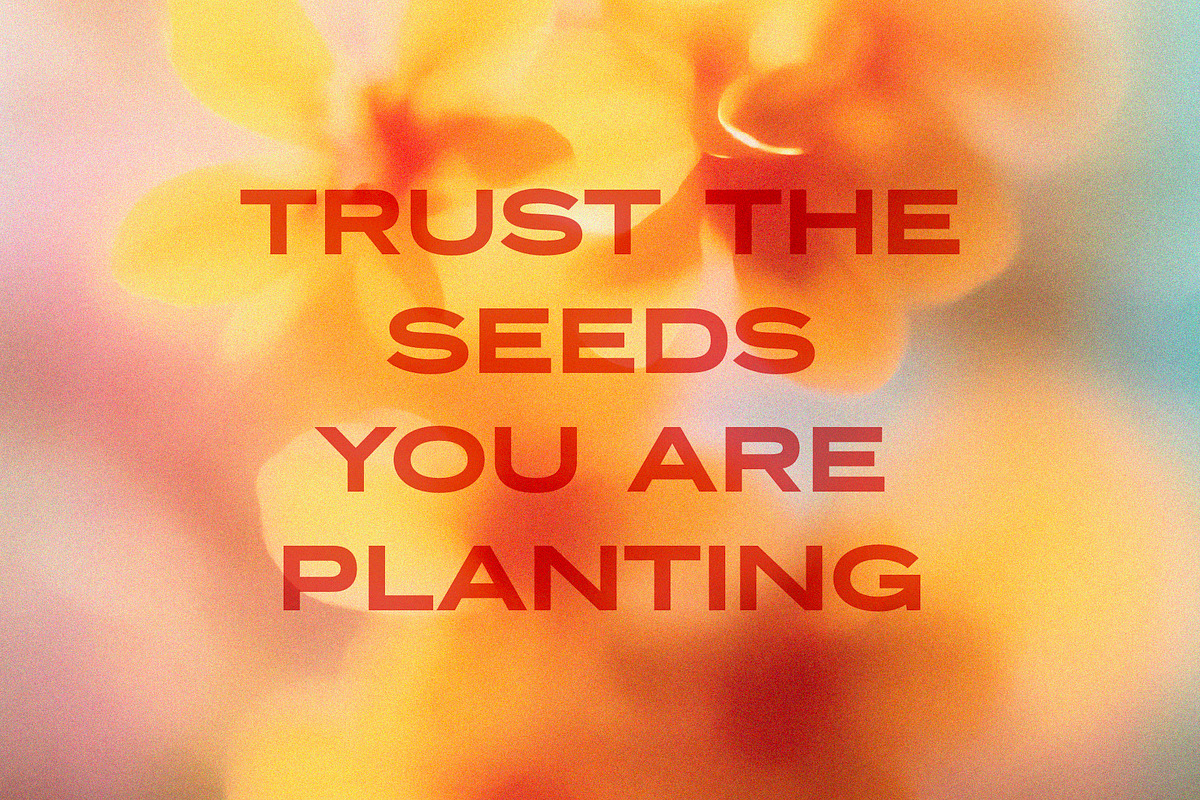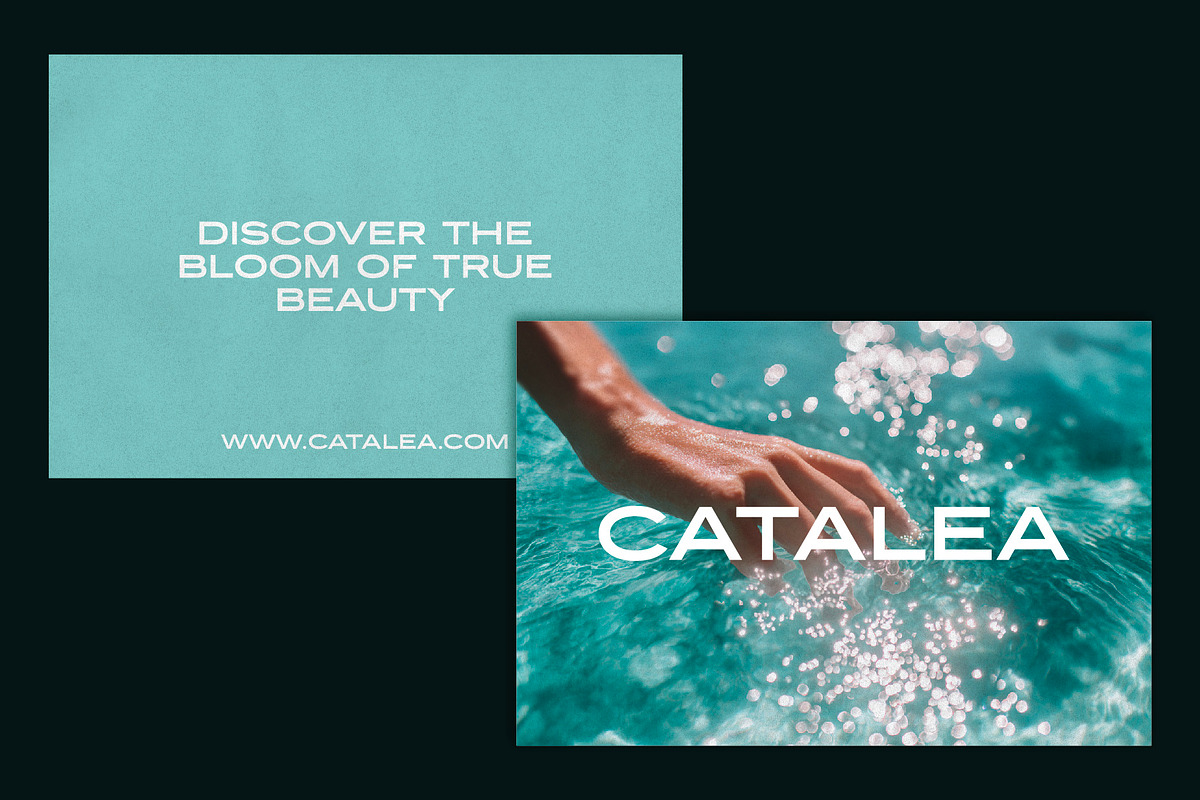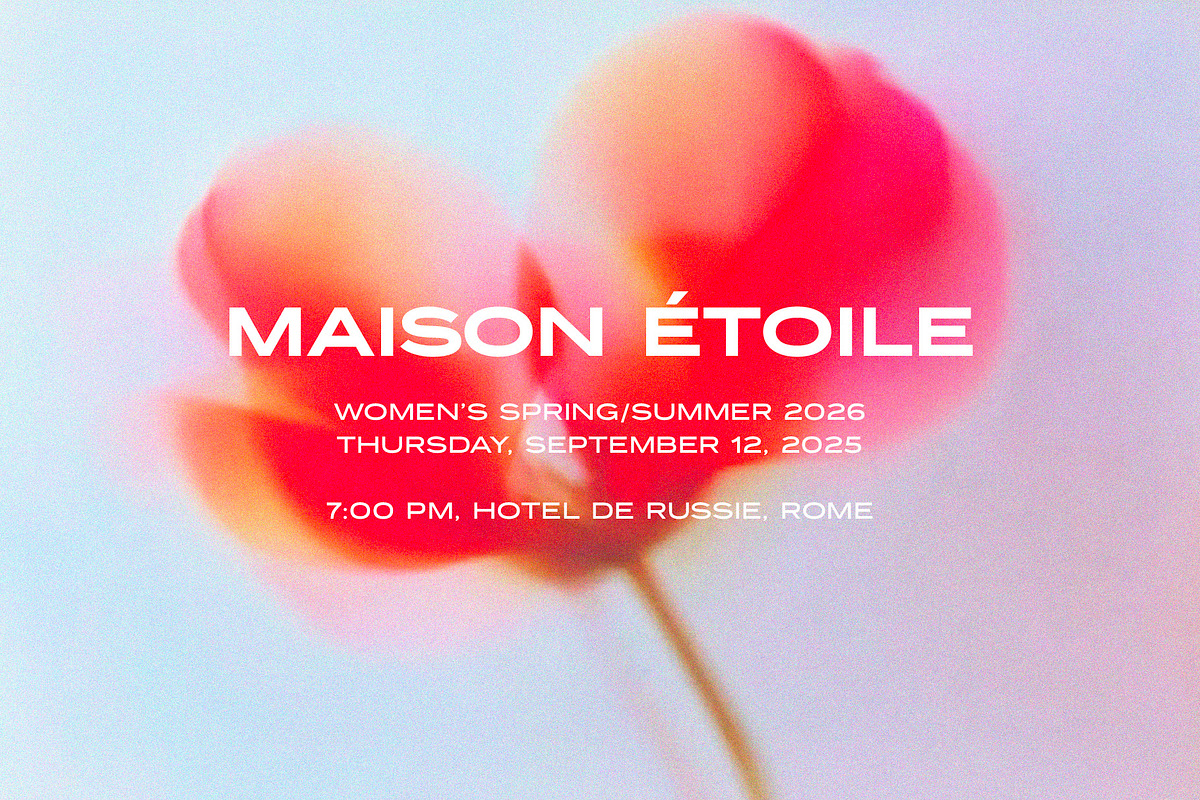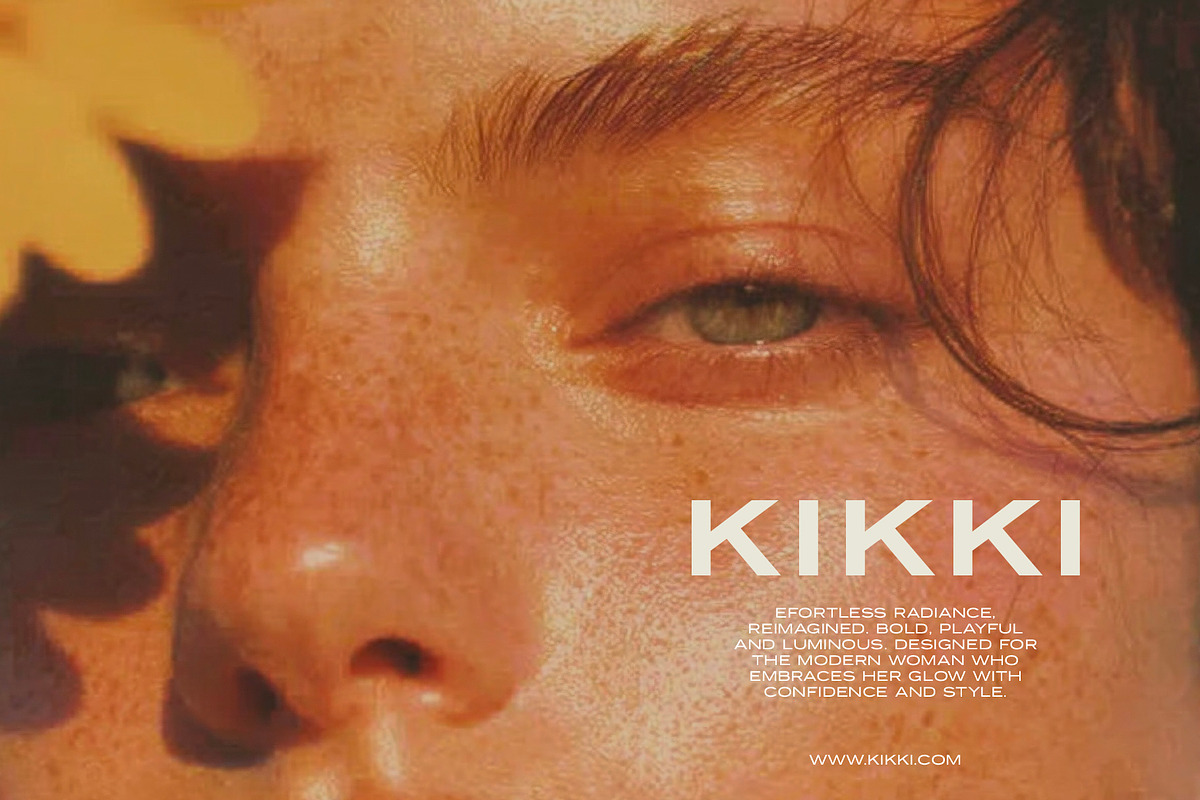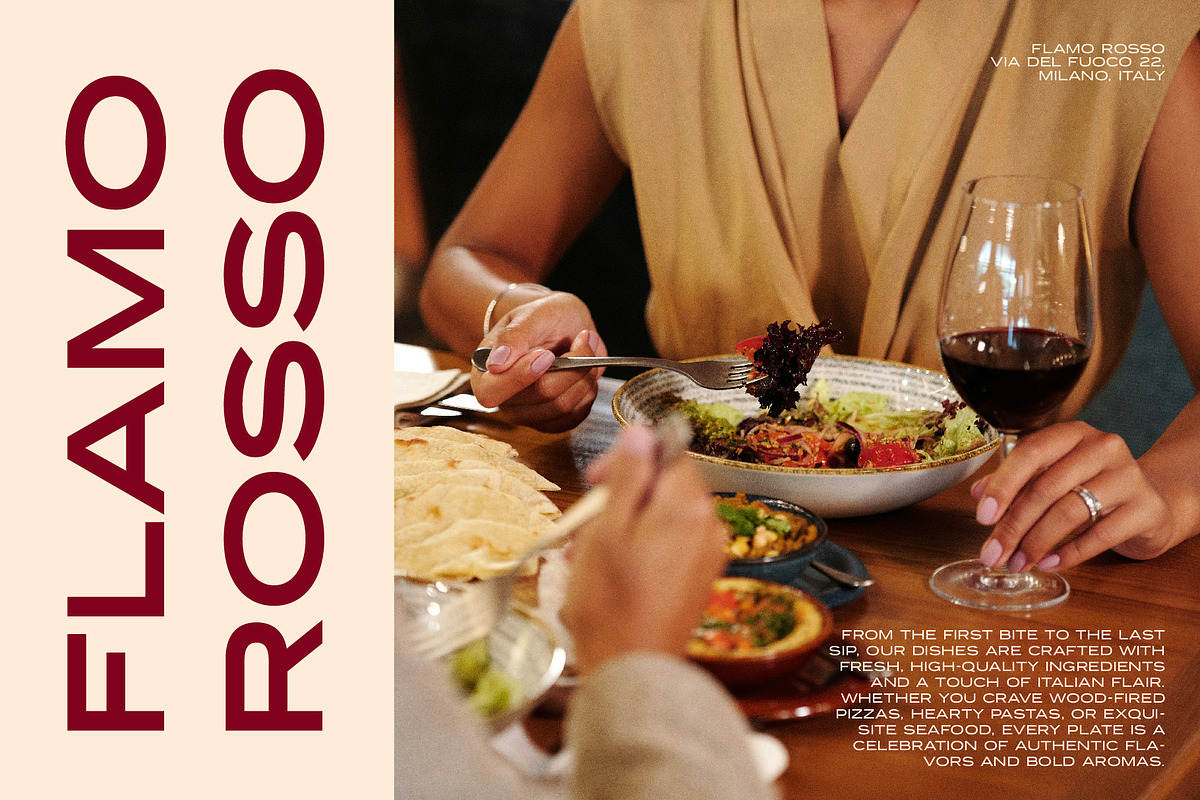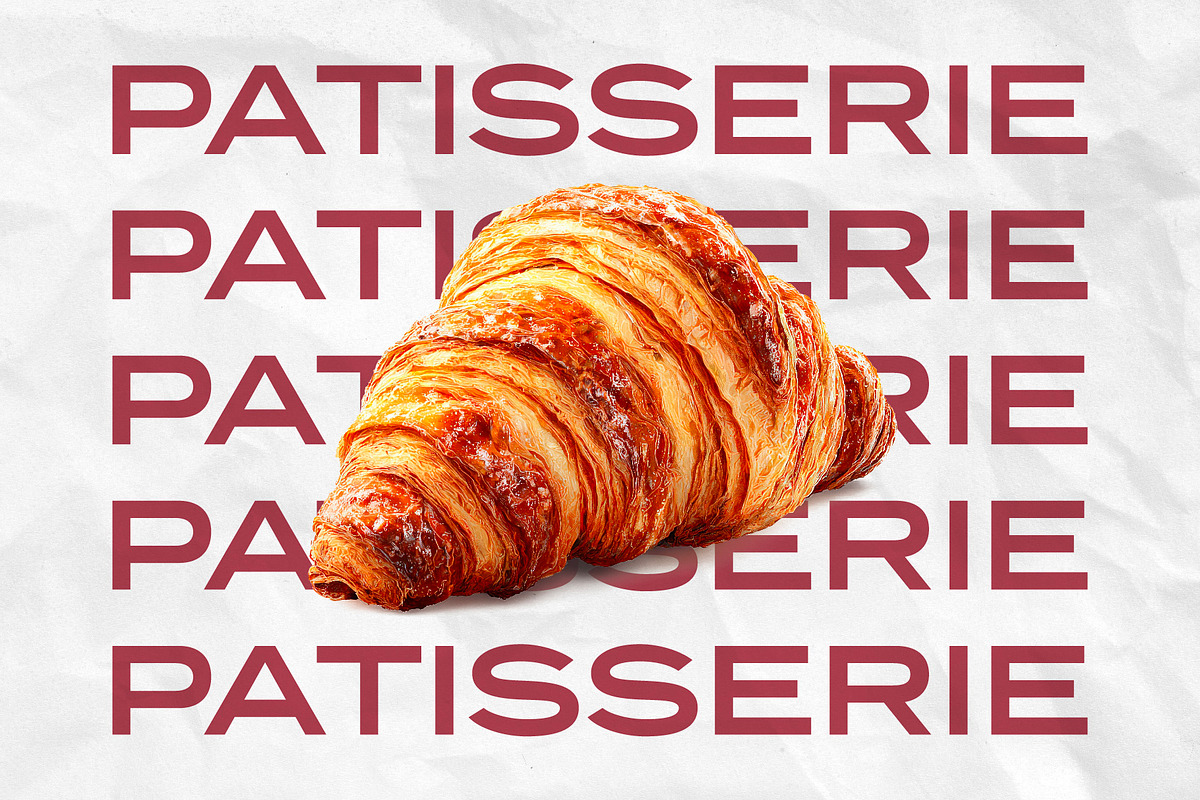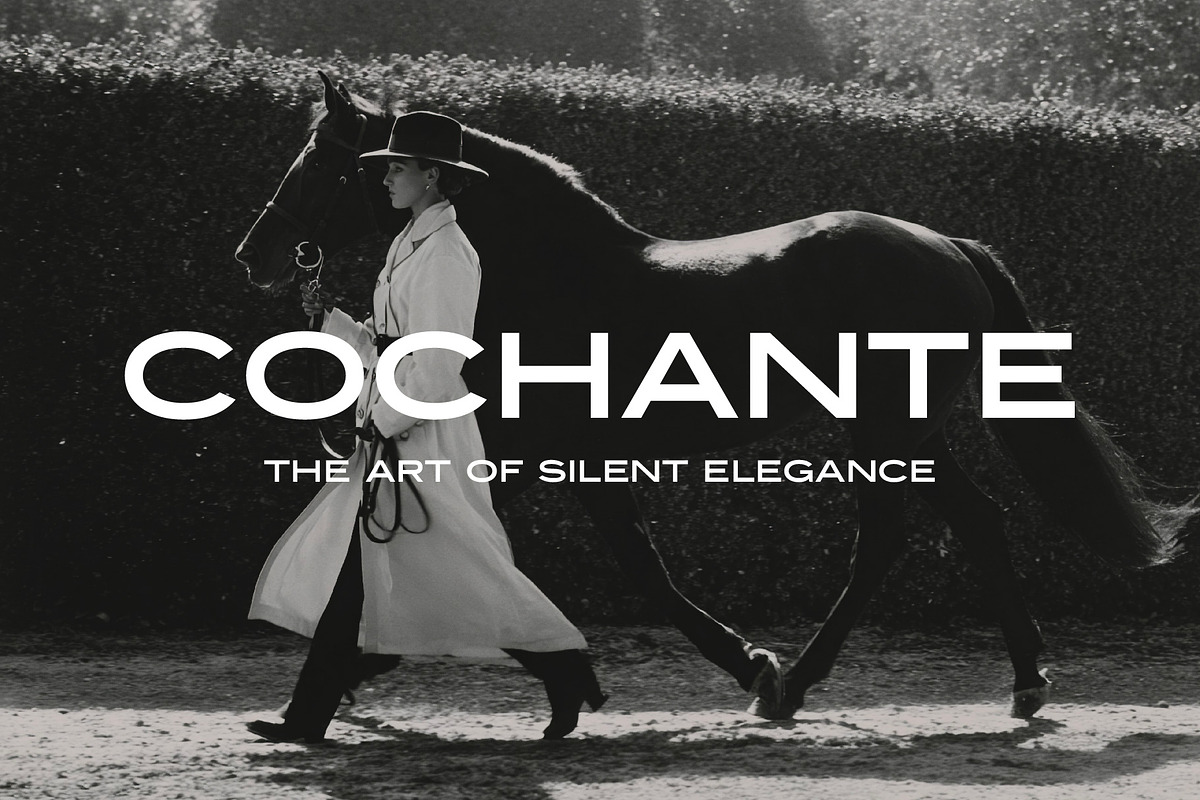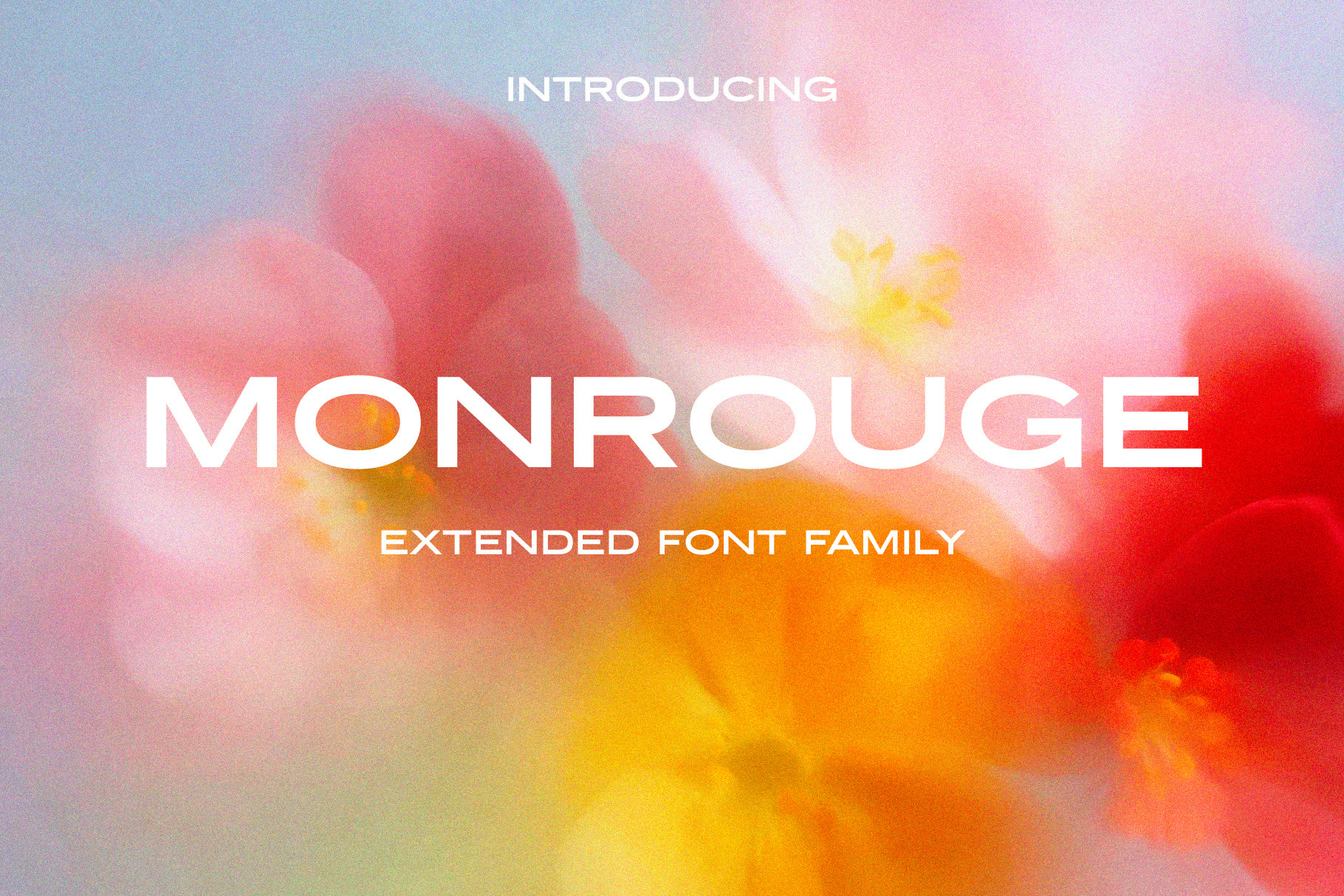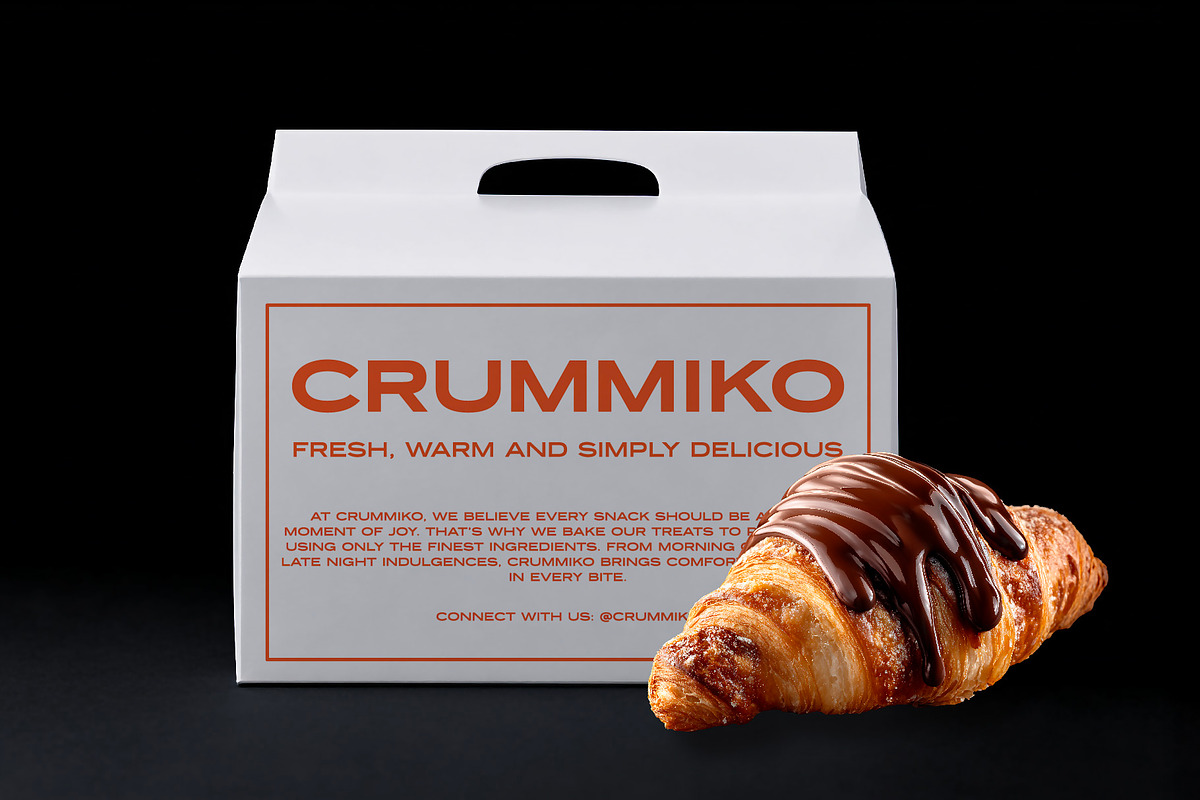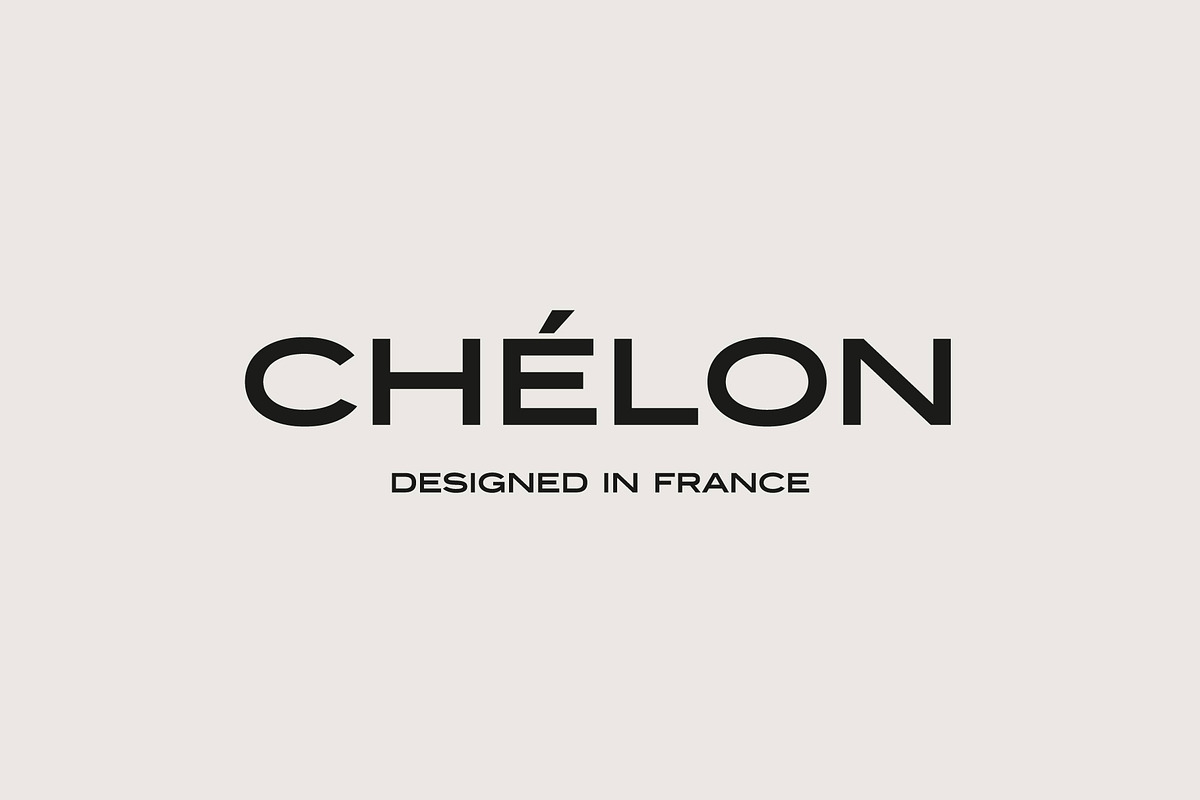
Monrouge Extended Sans Serif Font
Monrouge typeface combines clean lines, balanced proportions, and a wide stance to create impactful headlines, logos, and branding projects. Perfect for designers who want a contemporary yet timeless look. A clean aesthetic for branding, editorial, and digital designs. Ideal for logos, social media graphics, packaging, posters, and websites.
Multilingual support for Basic Latin and Western European languages (English, German, Dutch, Spanish, Portuguese, Italian,
Icelandic, Danish, Norvegian, Swedish, Faroese).